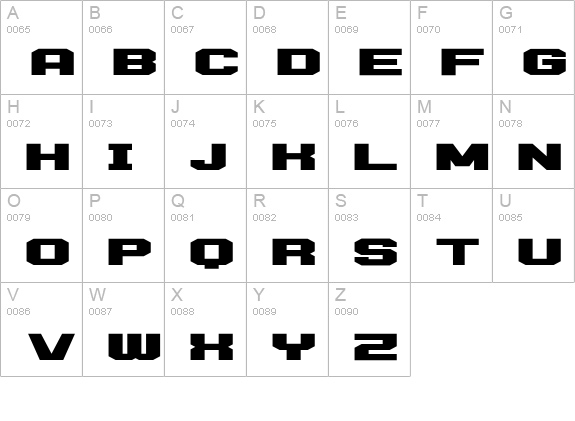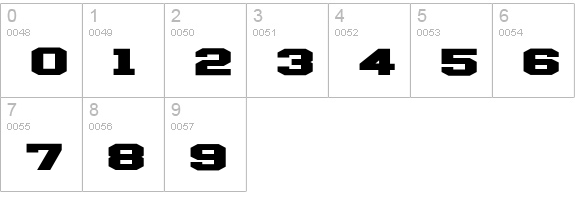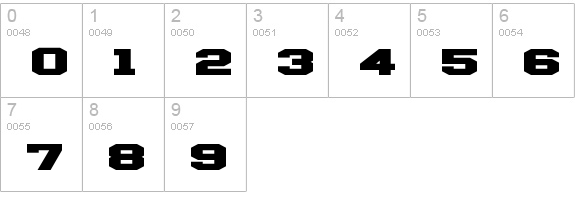
D3 Egoistism Font Details
Introducing D3 Egoistism, a captivating and bold font that exudes confidence and individuality. Designed with a touch of rebelliousness, this typeface is perfect for those who dare to stand out and embrace their unique style. D3 Egoistism features an intricate and edgy design, with sharp angles and distinct letterforms that command attention. Its strong presence on any design project guarantees to leave a lasting impression. This font offers a wide range of characters, from uppercase to lowercase, numerals, punctuation marks, and special symbols. Each glyph has been meticulously crafted to maintain its artistic integrity and overall consistency, resulting in a cohesive and visually striking typeface. But what sets D3 Egoistism apart is its generosity. It is freely available to download at FontsMarket.com, allowing designers, creatives, and enthusiasts alike to unleash their creativity without any limitations. This font empowers everyone to express their individuality and create captivating designs that leave a lasting impact. Whether you're working on a branding project, advertising campaign, poster design, or any other creative endeavor, D3 Egoistism is the perfect choice to add a touch of boldness and uniqueness. Its versatility allows it to be used across various mediums, from digital to print, making it an essential addition to any designer's toolkit. Embrace the freedom and let your ego shine with D3 Egoistism. Download this captivating font today at FontsMarket.com and unlock the limitless possibilities it holds for your next design masterpiece.